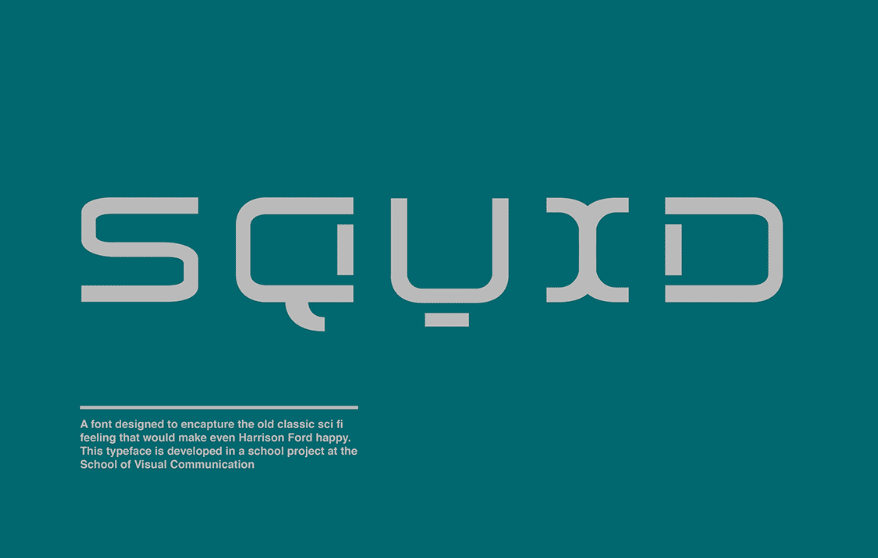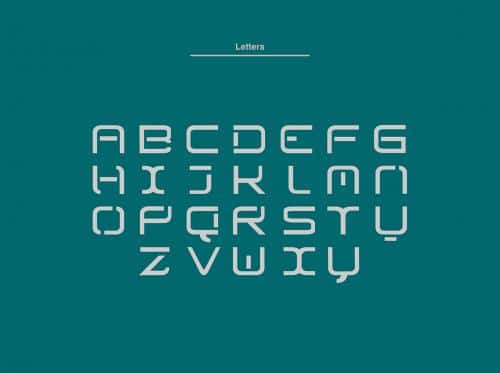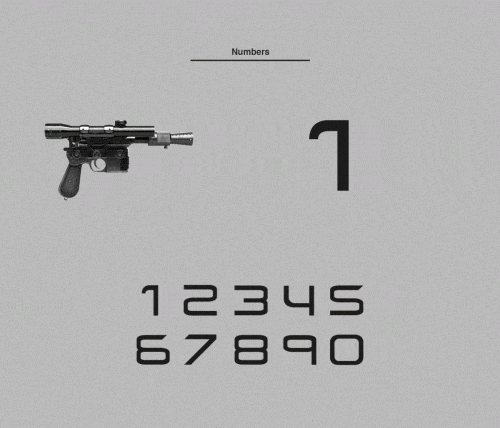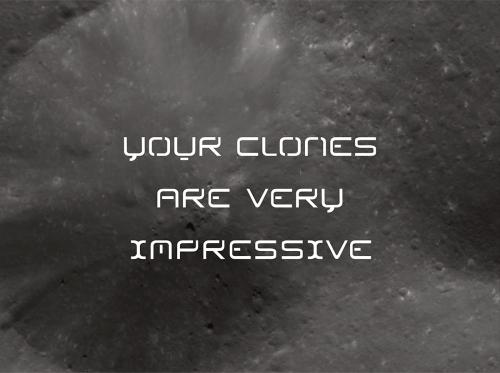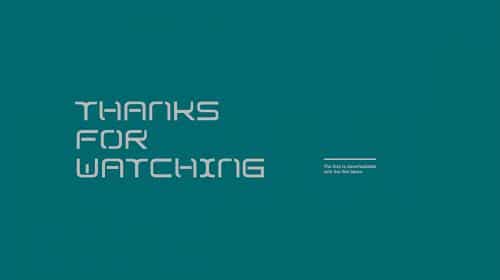
Squid Font is a font designed to encapture the old classic sci-fi feeling that would make even Harrison Ford happy. This typetaoe is developed in a school project at the School of Visual Communication
- Designer: Mattias Faccini